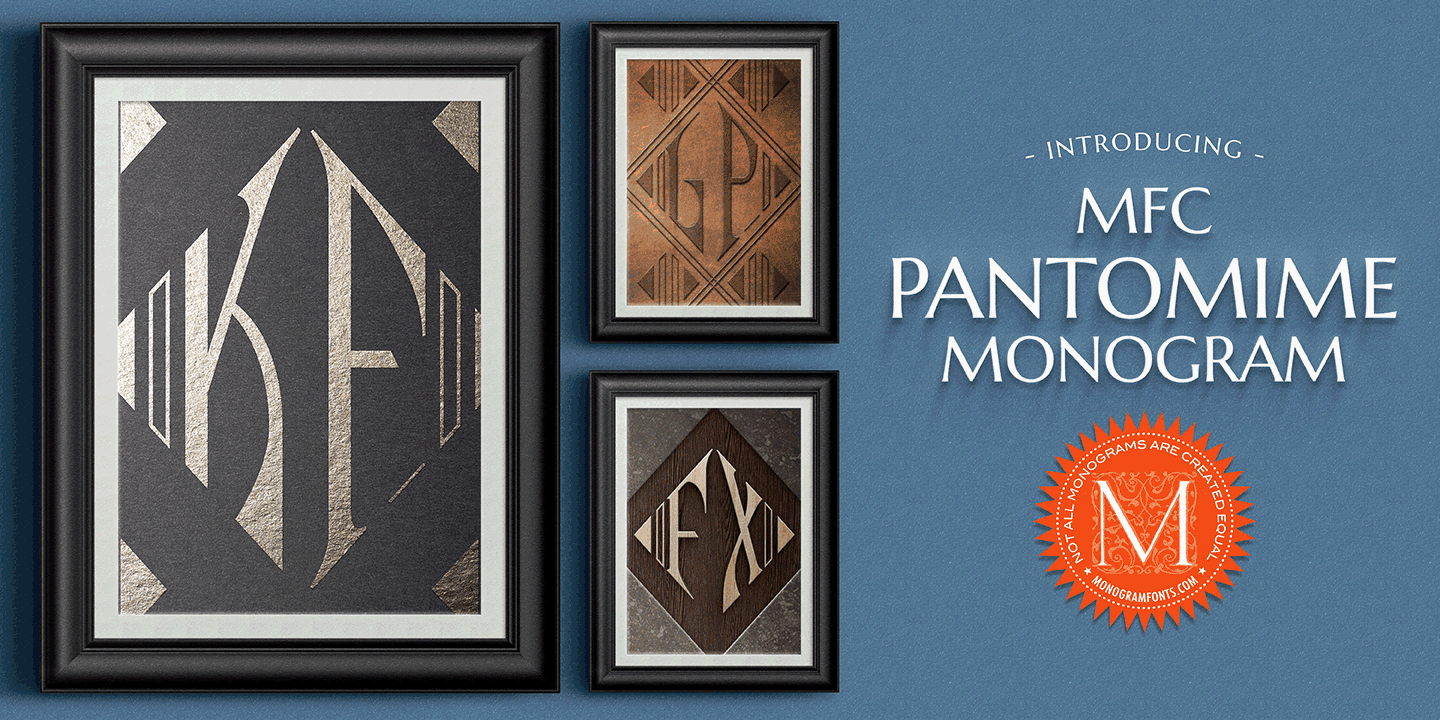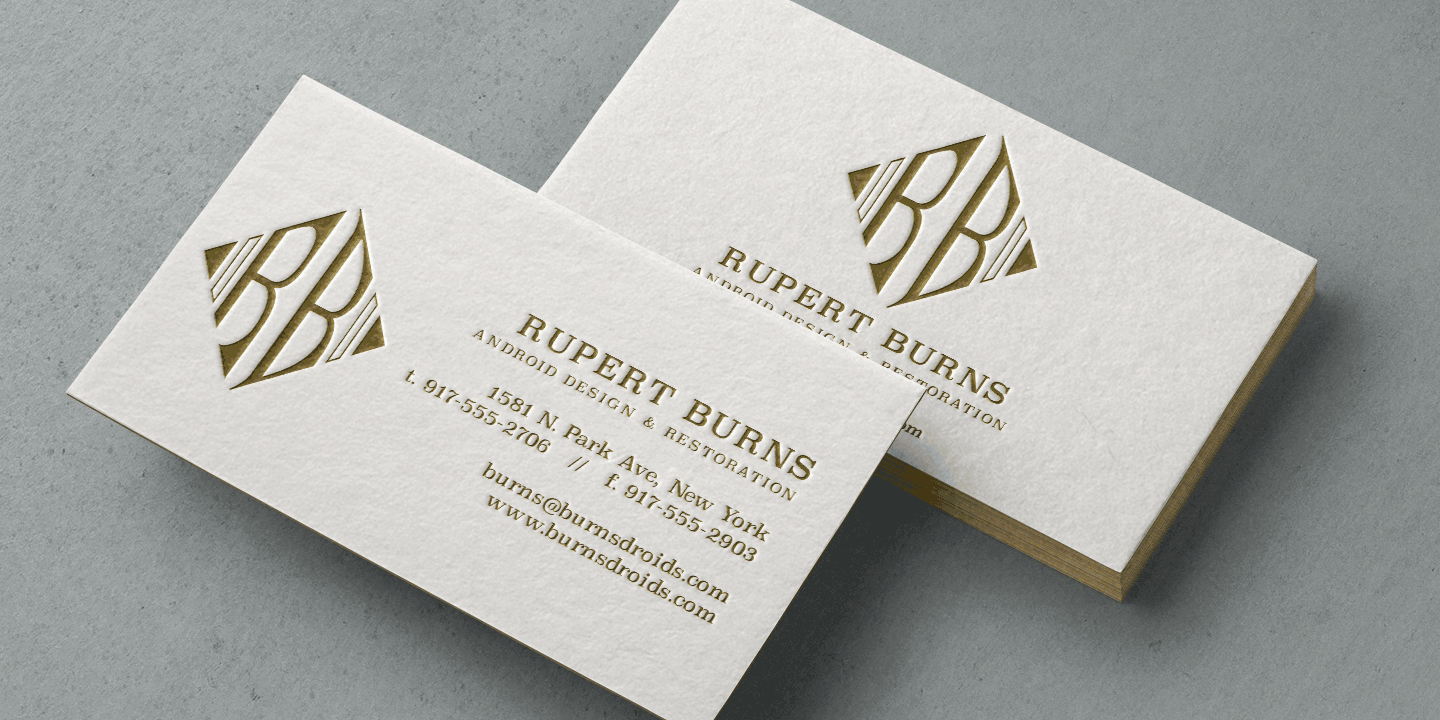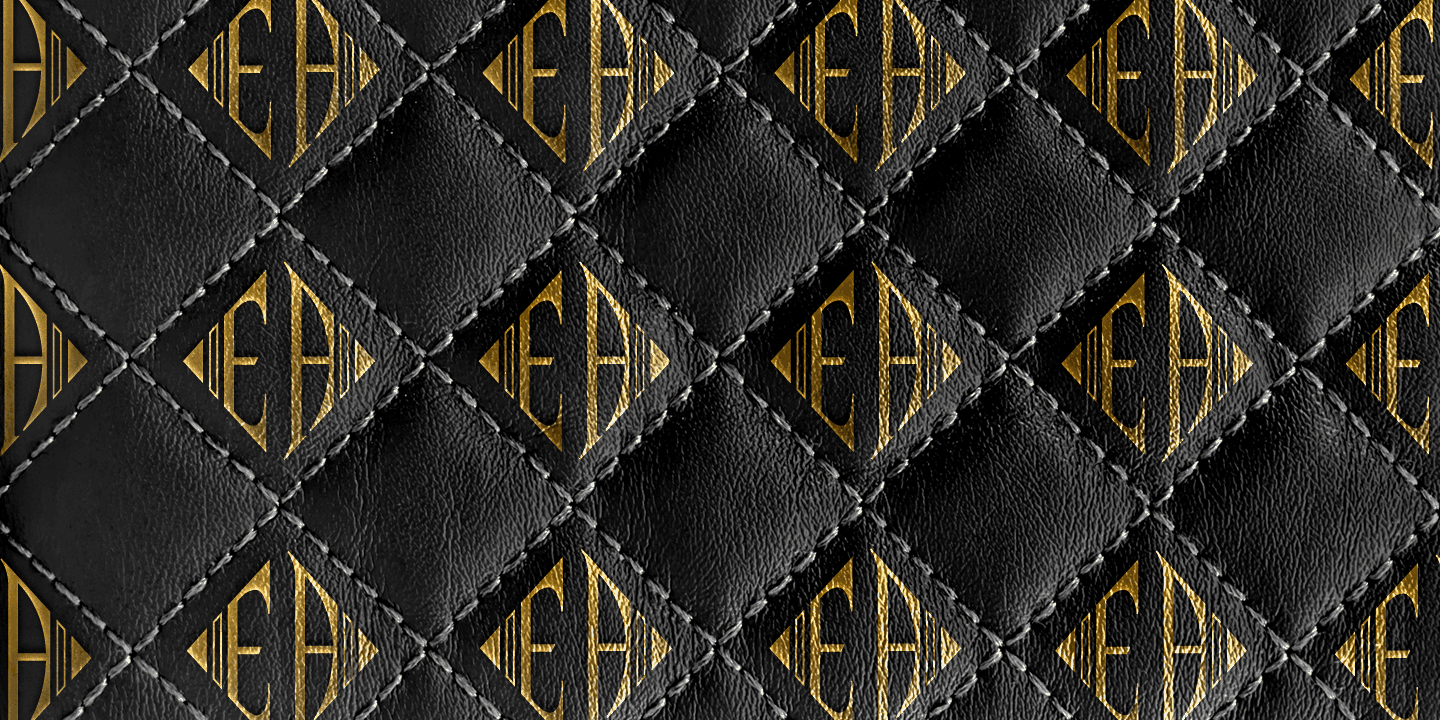
Pantomime Monogram
The inspiration source for Pantomime Monogram is an unusual Art Deco design from a vintage embroidery publication which combines both sans-serif and flare serif styles to create a diamond monogram format. This monogram, which evokes visions of it etched into bakelite, was originally intended to adorn handkerchiefs and towels, but it has so many other possibilities. It is one of many monogram designs from the early 1900's which fall into a two letter format that is either adorned or interwoven with framing styles. Pantomime Monogram is only capable to two letter monograms due to its unique design.